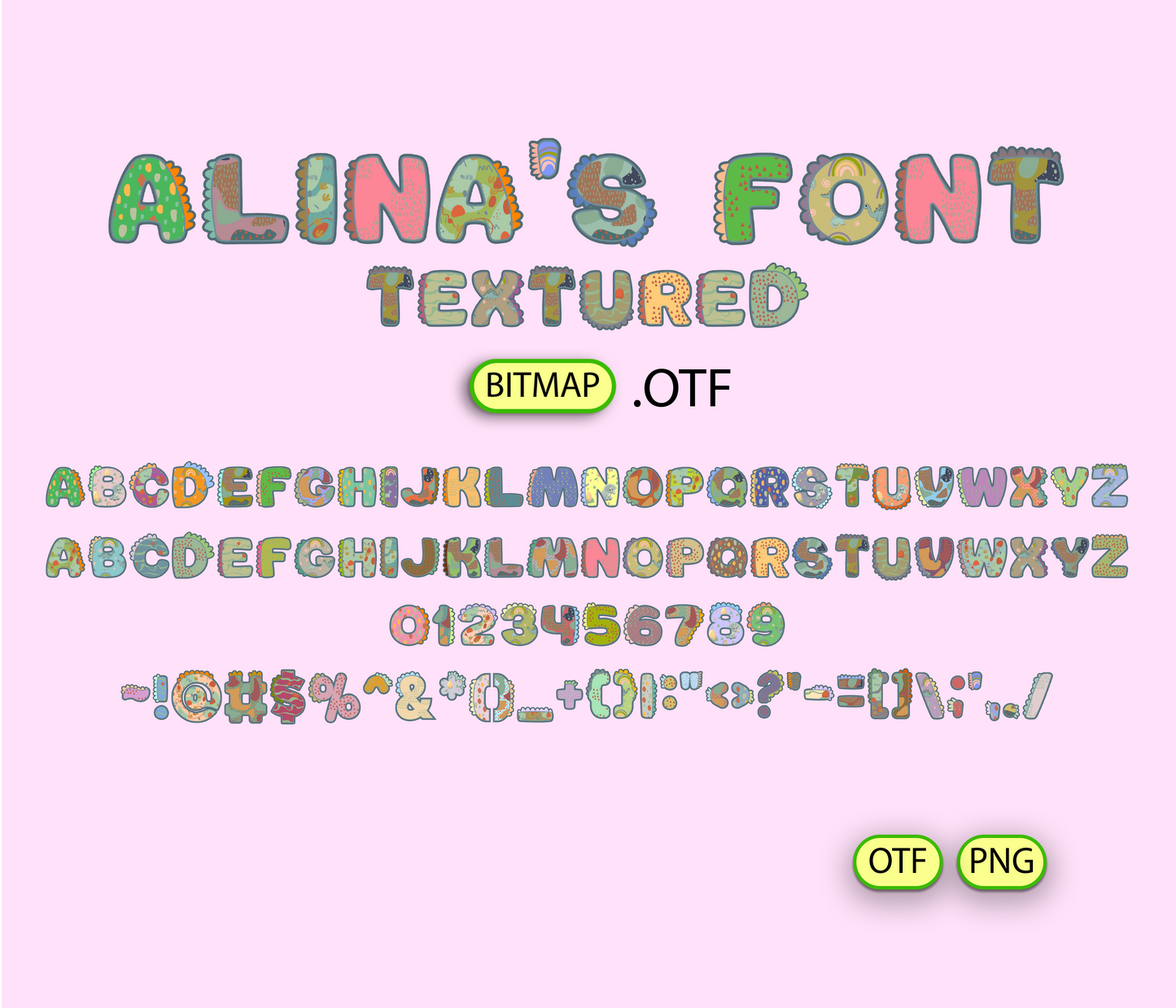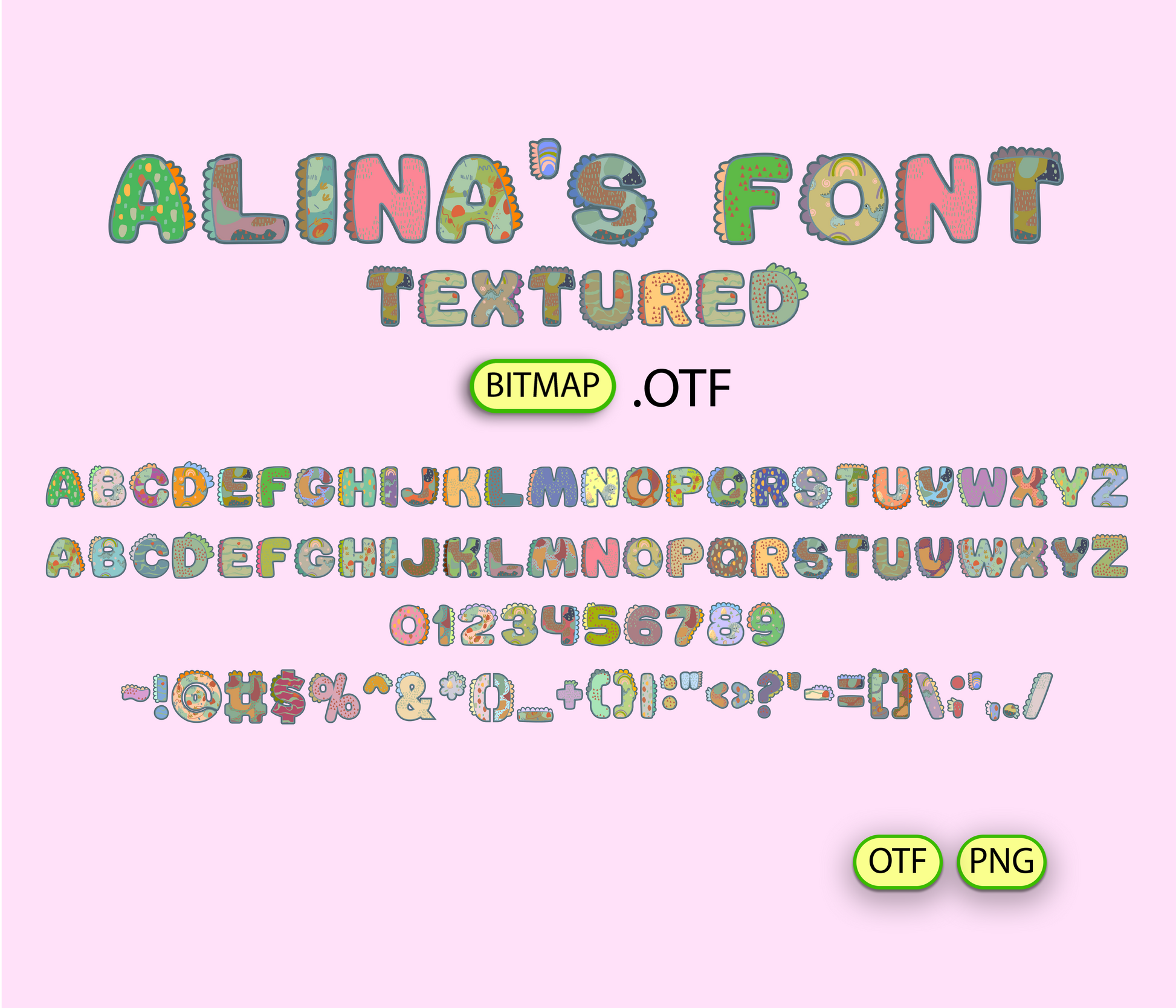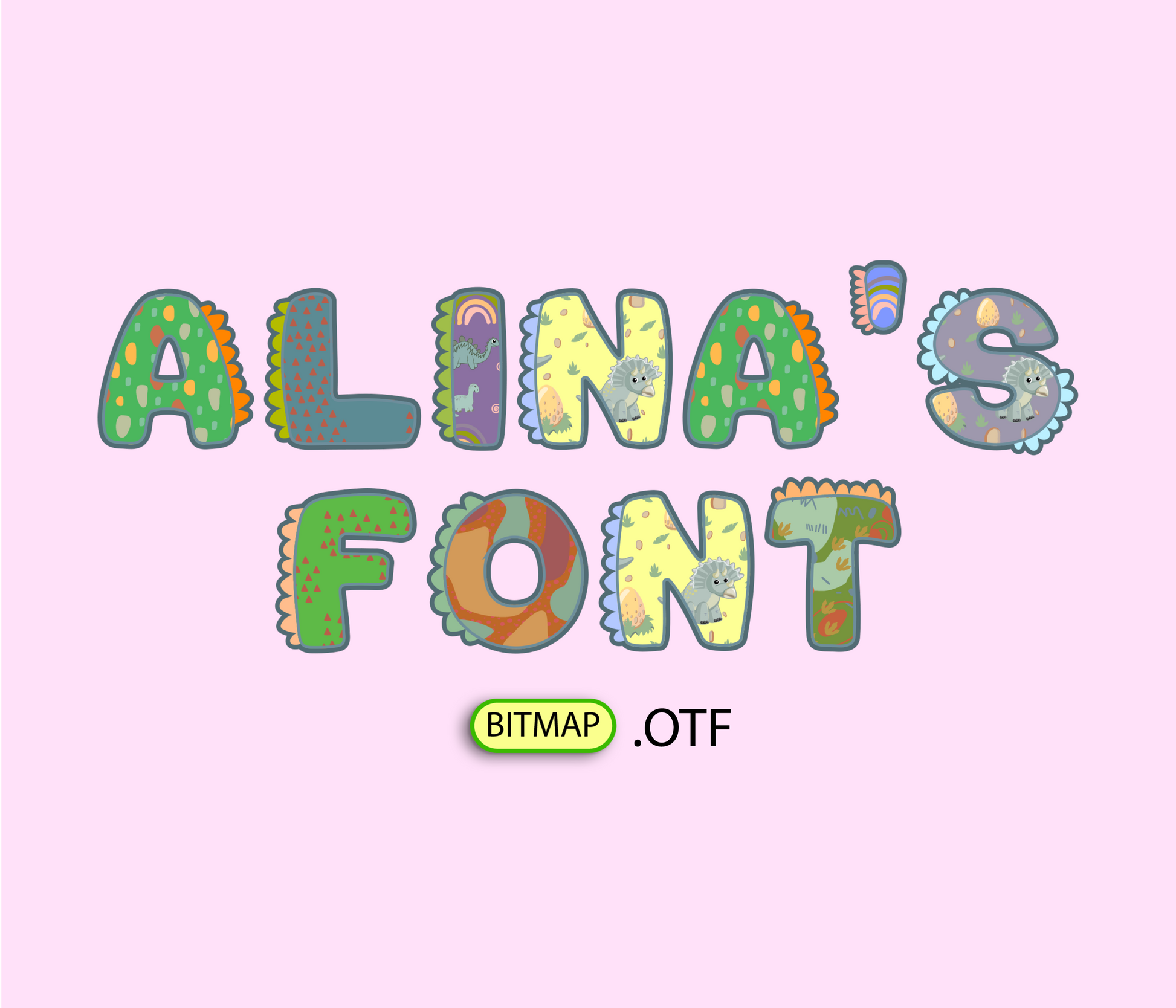
Dinosaur Prehistoric Pattern Font
The Prehistoric Majesty of Dinosaur
Step back in time to the age of the dinosaurs with our Dinosaur font, a typeface inspired by the giants that once roamed the earth. This font captures the essence of these magnificent creatures, from the towering might of the T-Rex to the graceful elegance of the Diplodocus. Each character in the Dinosaur font is designed to evoke the awe and wonder associated with these prehistoric beings, making it perfect for projects that aim to bring the ancient world of dinosaurs to life.
What Font is Dinosaur Font?
Envision a typeface that encapsulates the rugged, powerful, and majestic nature of dinosaurs. Our Dinosaur font is crafted to mirror the textures and contours found in the prehistoric world, with a focus on bold, sturdy letterforms that echo the strength of these creatures. It includes an extensive character set, featuring alphabets, numbers, and special symbols, providing a versatile toolkit for a wide range of design projects, from educational content to themed merchandise.
What Can You Do With Dinosaur Font?
The Dinosaur font is versatile and ideal for various creative and educational applications:
- Educational Materials: Perfect for creating engaging teaching aids, books, and resources about dinosaurs and paleontology.
- Themed Event Invitations: Create exciting invitations for dinosaur-themed parties, exhibitions, or museum events.
- Merchandise Design: Ideal for designing t-shirts, posters, and toys that appeal to dinosaur enthusiasts of all ages.
- Digital Content and Social Media: Use the font to add a prehistoric touch to websites, blogs, and social media posts about dinosaurs or natural history.
- Museum and Exhibition Signage: Enhance informational displays and signage in museums or educational centers.
- Greeting Cards and Stationery: Design personalized stationery or greeting cards with a dinosaur theme.
- Interior Decor: Create wall art, decals, or signage for children's rooms, classrooms, or themed spaces.
- Promotional Materials: Use in marketing and advertising materials for events, documentaries, or products related to dinosaurs.
- Book and Magazine Design: Apply it to publications focusing on science, history, or children's literature.
- Creative Art Projects: Ideal for crafting, scrapbooking, and artistic projects inspired by the prehistoric era.
- Textured and Non-Textured Variants: Each font is available in both a rugged, prehistoric style and a clean, non-textured version for diverse design needs.
- Comprehensive Character Set: Offers a wide range of characters for complete design versatility.
The Dinosaur-inspired font is more than just a typeface; it's an invitation to the fascinating world of these ancient creatures.